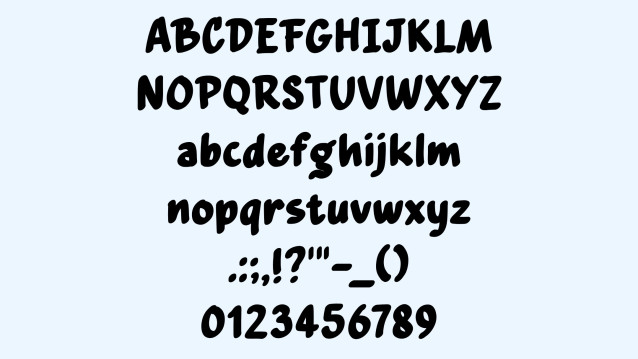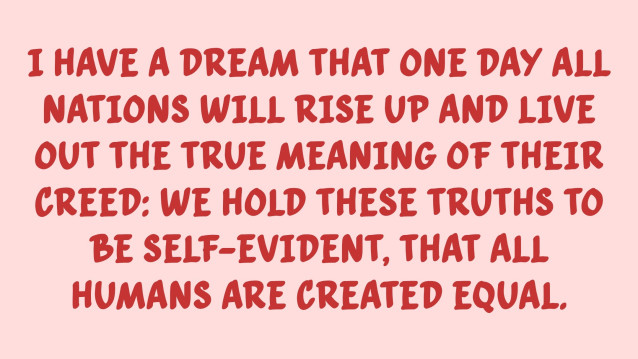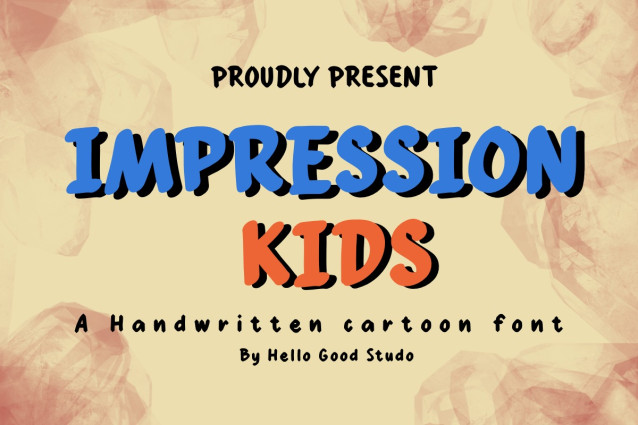
Impression Kids Font
Impression Kids Font is a simple and friendly handwritten font. Its natural and unique style makes it incredibly fitting to a large pool of designs. The only limit is your imagination!